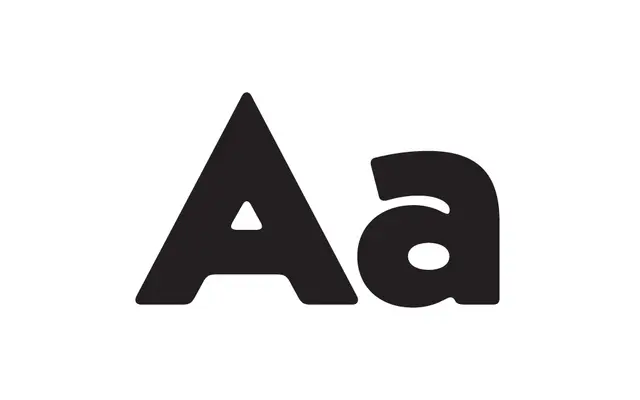
Krana Fat
Krana Fat specimen from Schick Toikka
A two-style brush-derived display face with condensed (A) and extended (B) cuts, designed to be mixed; first deployed in Bremen's 'Die Zeitschrift der Strasse'.
Krana Fat is a display typeface inspired by the lettering of Finnish designer and illustrator Erkki Toukolehto. Rather than imitating his wide flat brush, it abstracts the strokes into a soft contour and lands somewhere between typography and lettering, evoking vernacular signage, hobbyist templates and engineered institutional alphabets. A prototype first ran in the award-winning 'Die Zeitschrift der Strasse' in Bremen, where condensed and wide caps were mixed for staccato headlines. The released family splits this into two fonts, A (condensed) and B (extended), each with a lowercase, designed to be mixed within a line. Two sets of compact alternate accents stack closely above the cap line for dense type or maximum-size letters per page.
Schick Toikka describe Krana Fat as a peculiar display typeface inspired by the lettering of Finnish graphic designer and illustrator Erkki Toukolehto, sitting between typography and lettering and evoking vernacular signage, hobbyist templates and institutional alphabets constructed by teams of engineers.
A (condensed)B (extended)
Krana Fat AKrana Fat B